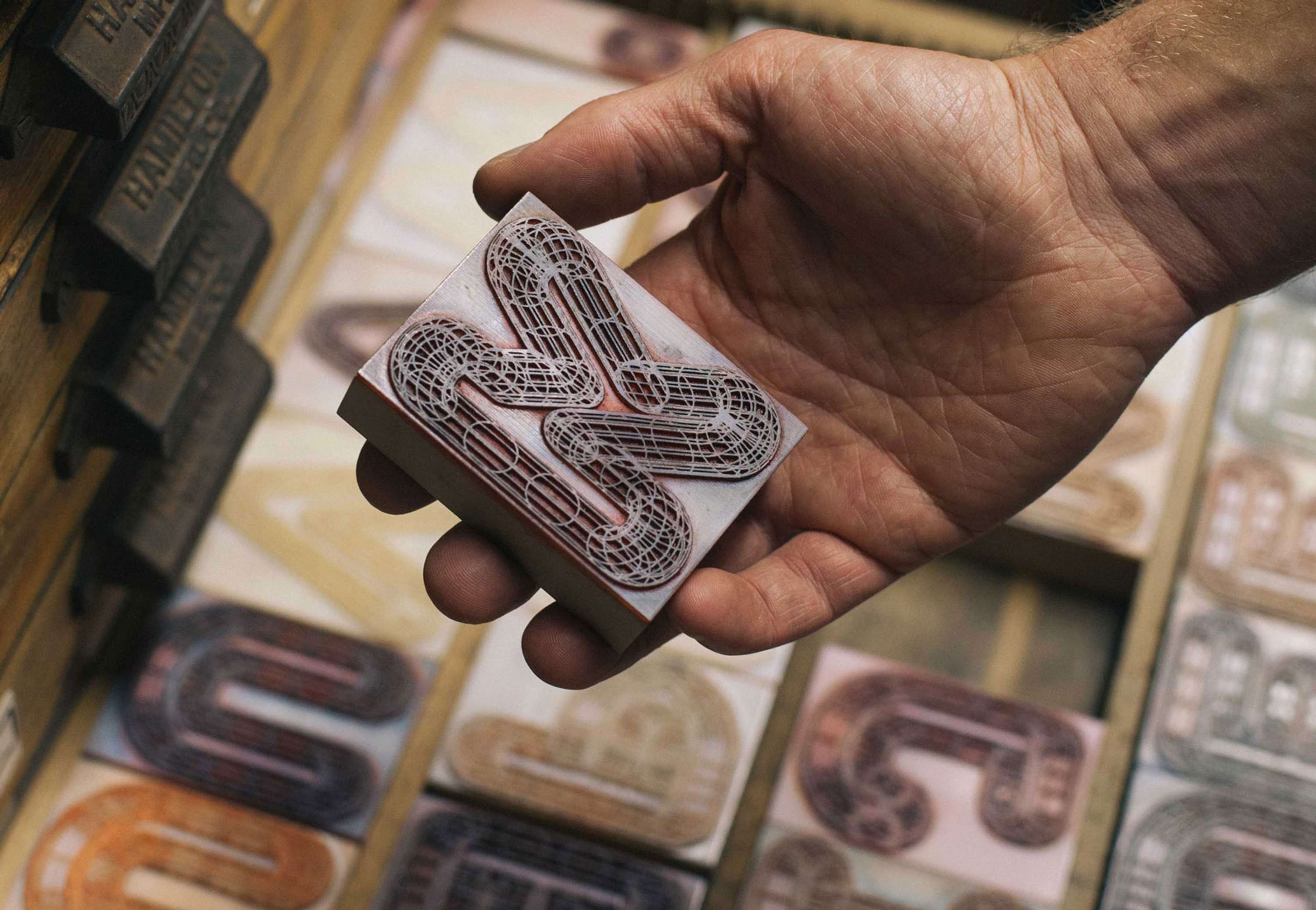
A23D: a 3D-printed letterpress font
A23D is a 3D-printed letterpress font commissioned by Richard Ardagh of New North Press. The font is a prototype, connecting the newest and the oldest forms of print technology, and looking to the future of letterpress in the 21st century. The font was designed by renowned type designers Scott Williams and Henrik Kubel, of A2-Type, and fabricated by model making specialists Chalk Studios. The project was supported using public funding by Arts Council England.
A23D: a 3D-printed letterpress font by Richard Ardagh